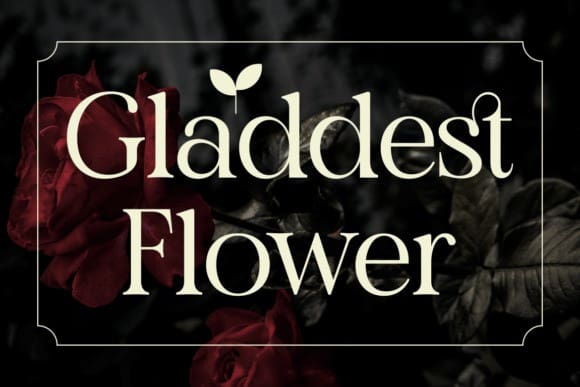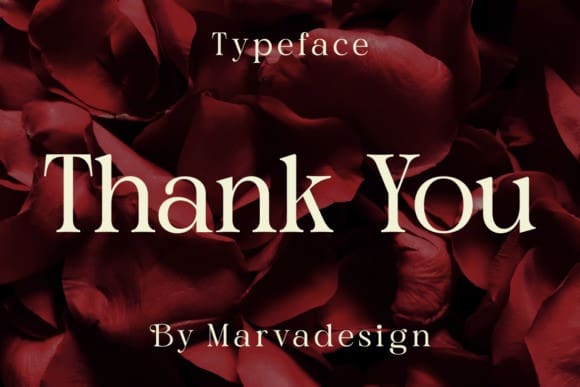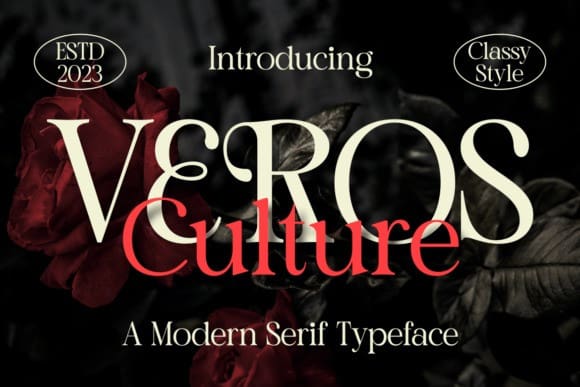
Veros Culture Font
Veros Culture Font is an elegant serif font, that features a very delicate and classy look. Not too thin and not too thick, balanced and varied, Florania was designed to enhance the beauty of your projects.